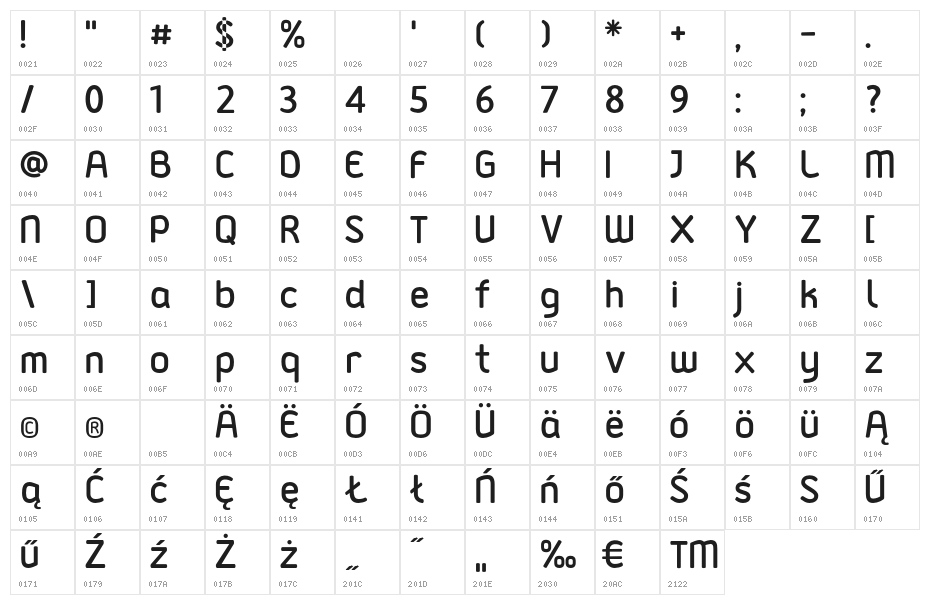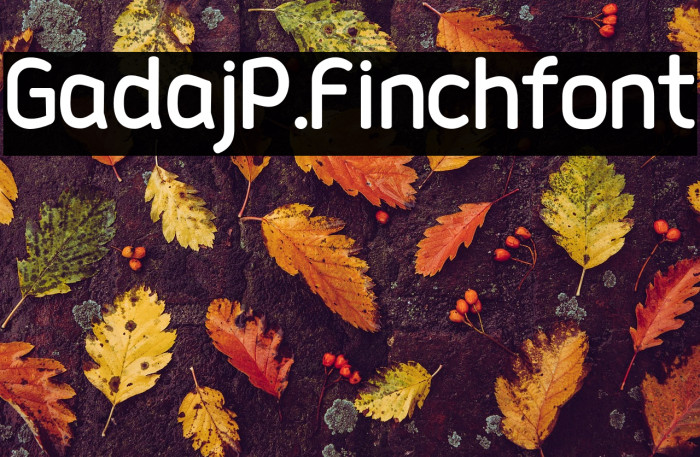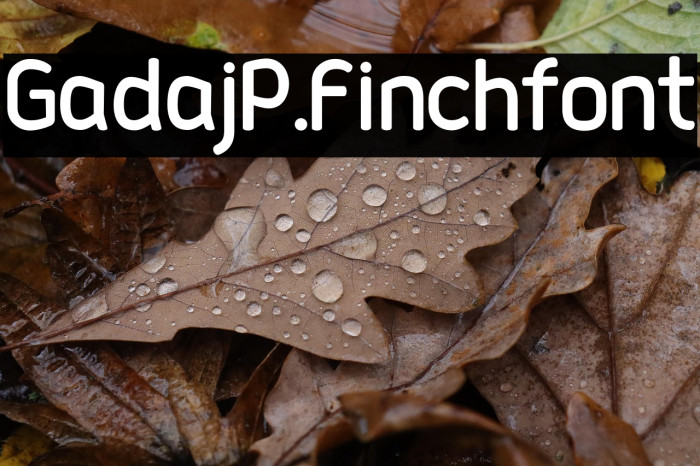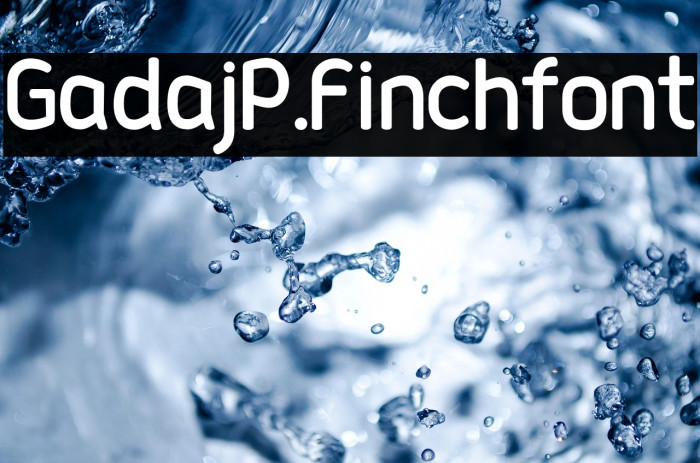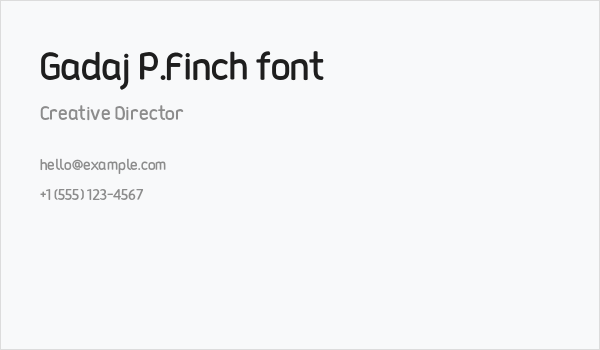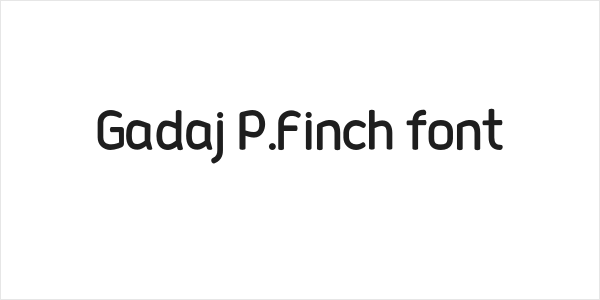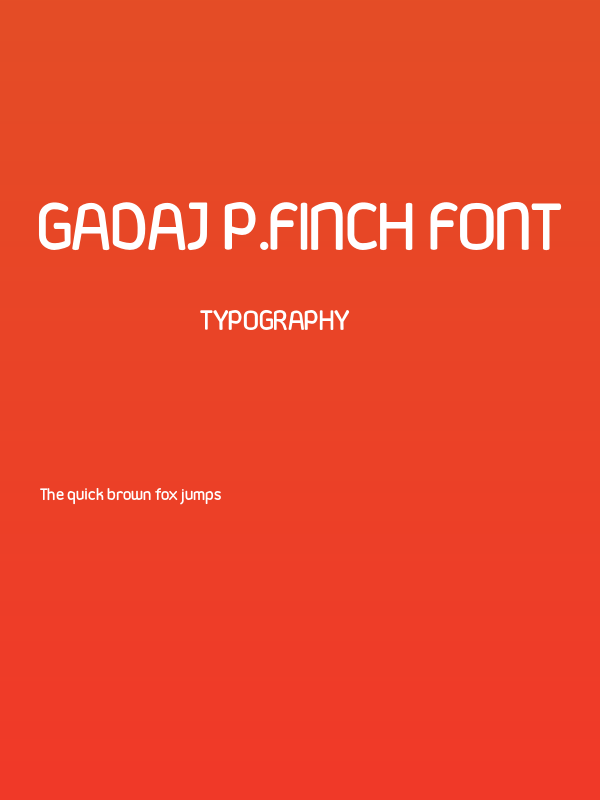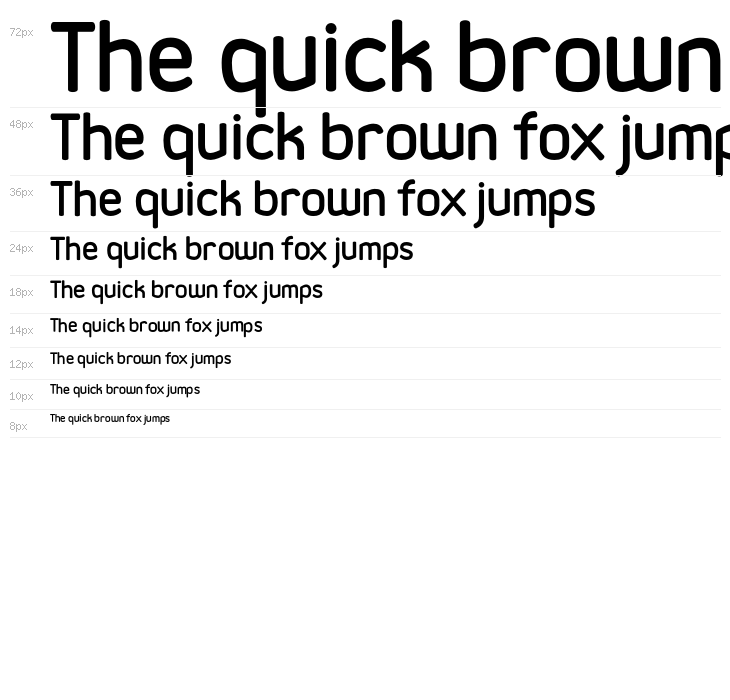
Gadaj_P.Finch_font Font
Gadaj_P.Finch_font Description
This font features a modern and clean design with rounded edges, giving it a friendly and approachable appearance. The characters are evenly spaced, contributing to its readability. The uppercase and lowercase letters maintain a consistent style, with smooth curves and a uniform stroke width. The numerals are clear and distinct, making them easy to read. Special characters are well-integrated, matching the overall aesthetic of the font. This font is versatile, suitable for both digital and print media, and can be used in various design projects.
| Proposed Projects | Ideal for branding, advertising, web design, and user interfaces due to its readability and modern look. |